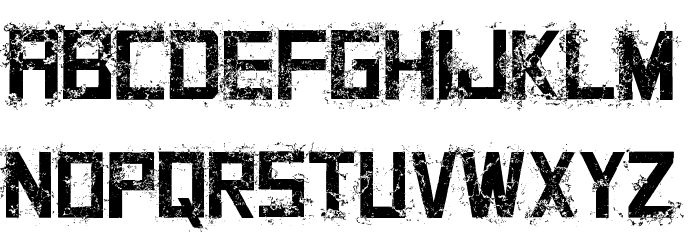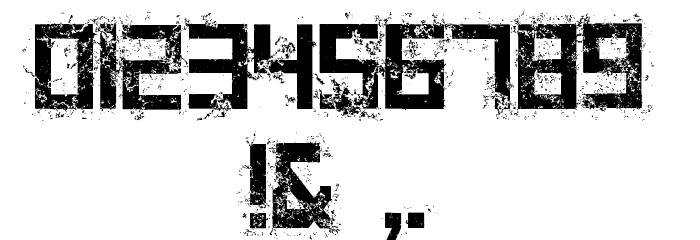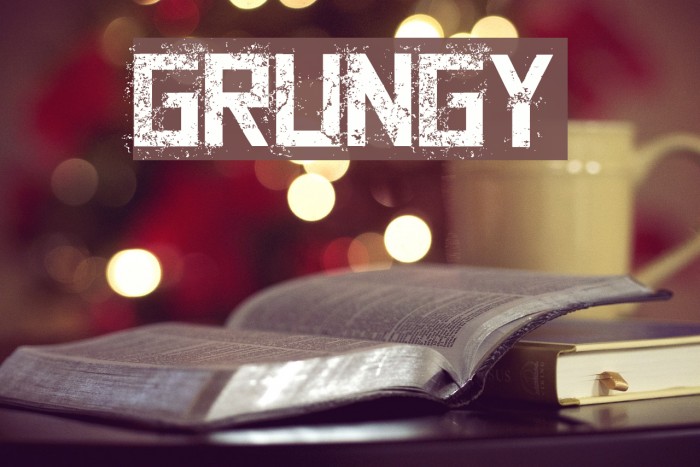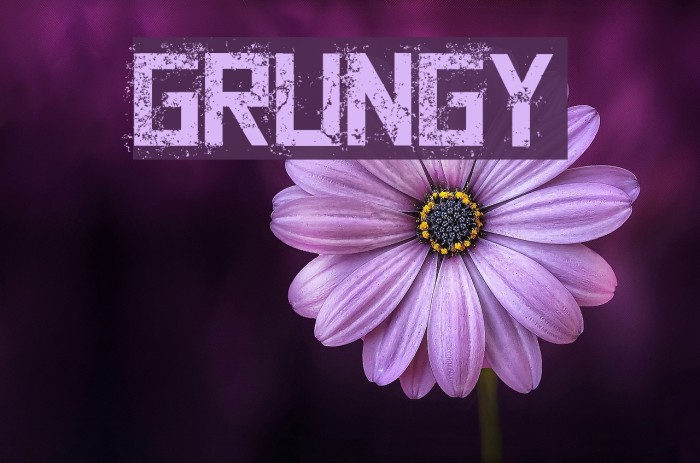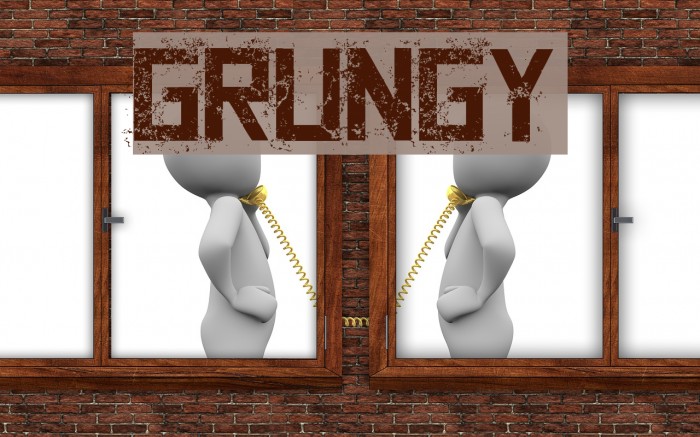
Grungy Font
This font features a bold, distressed style with a grungy texture that gives it a rugged and worn appearance. The characters are blocky and geometric, with a consistent height and width, creating a uniform look despite the distressed effect. The texture appears as if the letters have been eroded or weathered, adding a sense of age and character. This style is reminiscent of urban graffiti or industrial design, making it stand out with its unique and edgy aesthetic.
A bold, distressed font with a grungy, textured appearance.
- Proposed Projects: Ideal for music album covers, streetwear branding, posters, and urban-themed designs.
- Overall Style: Grunge, Urban, Industrial